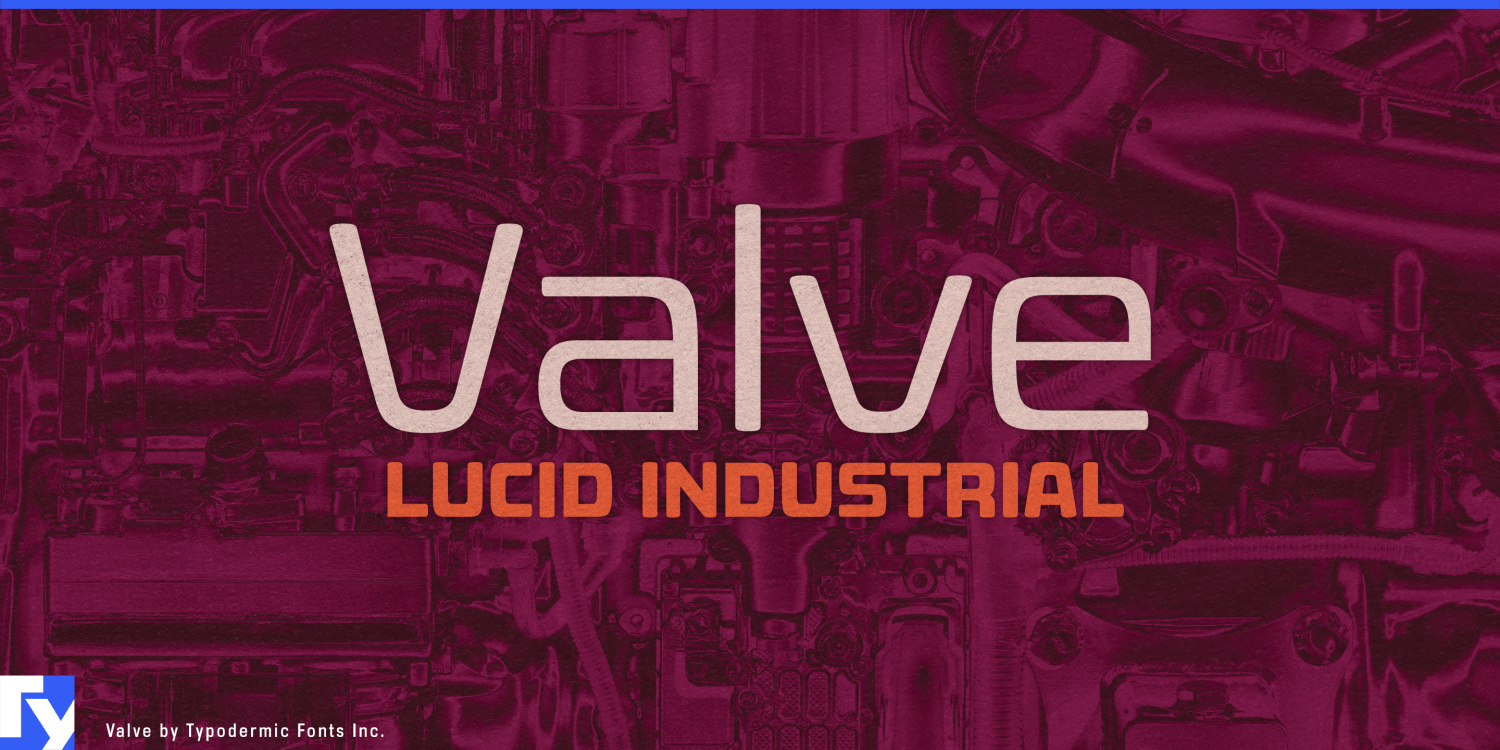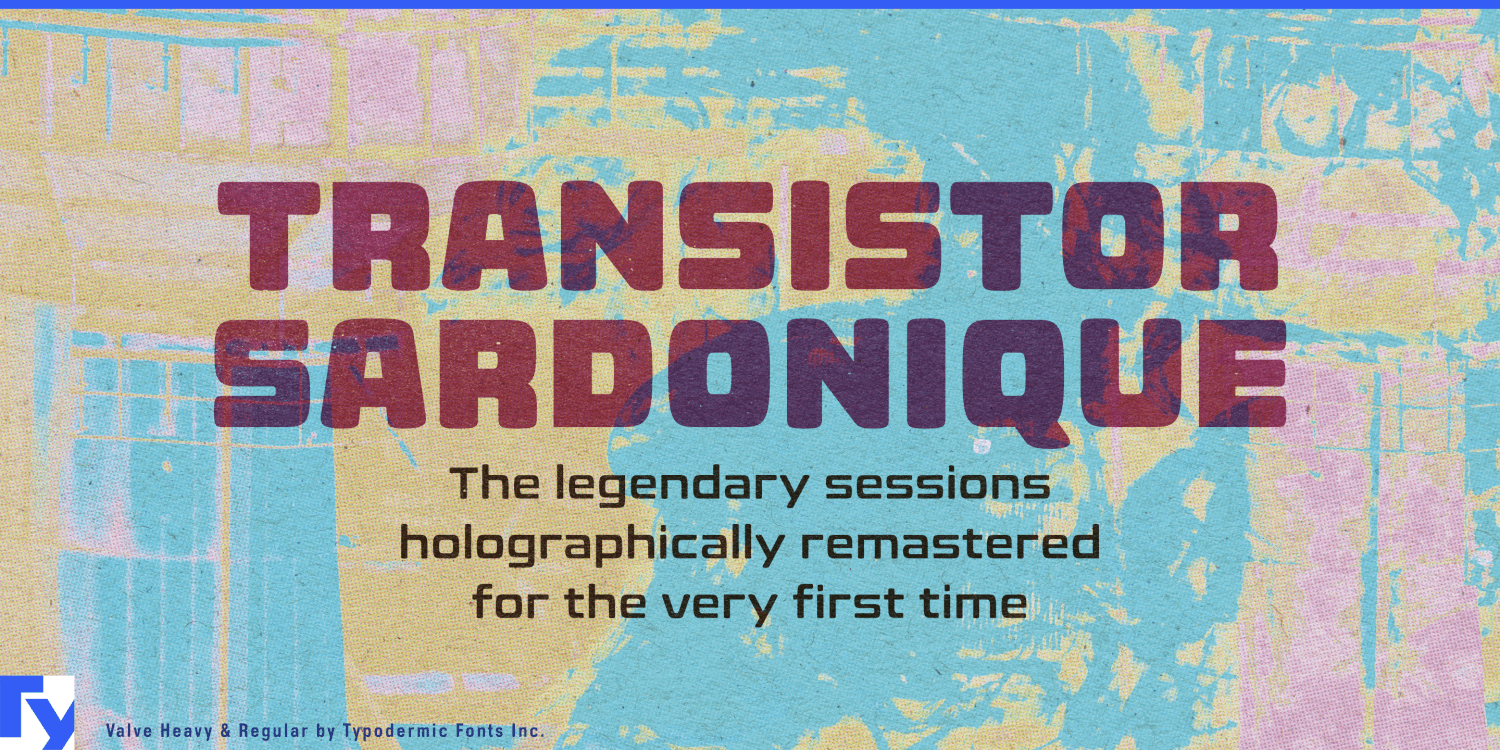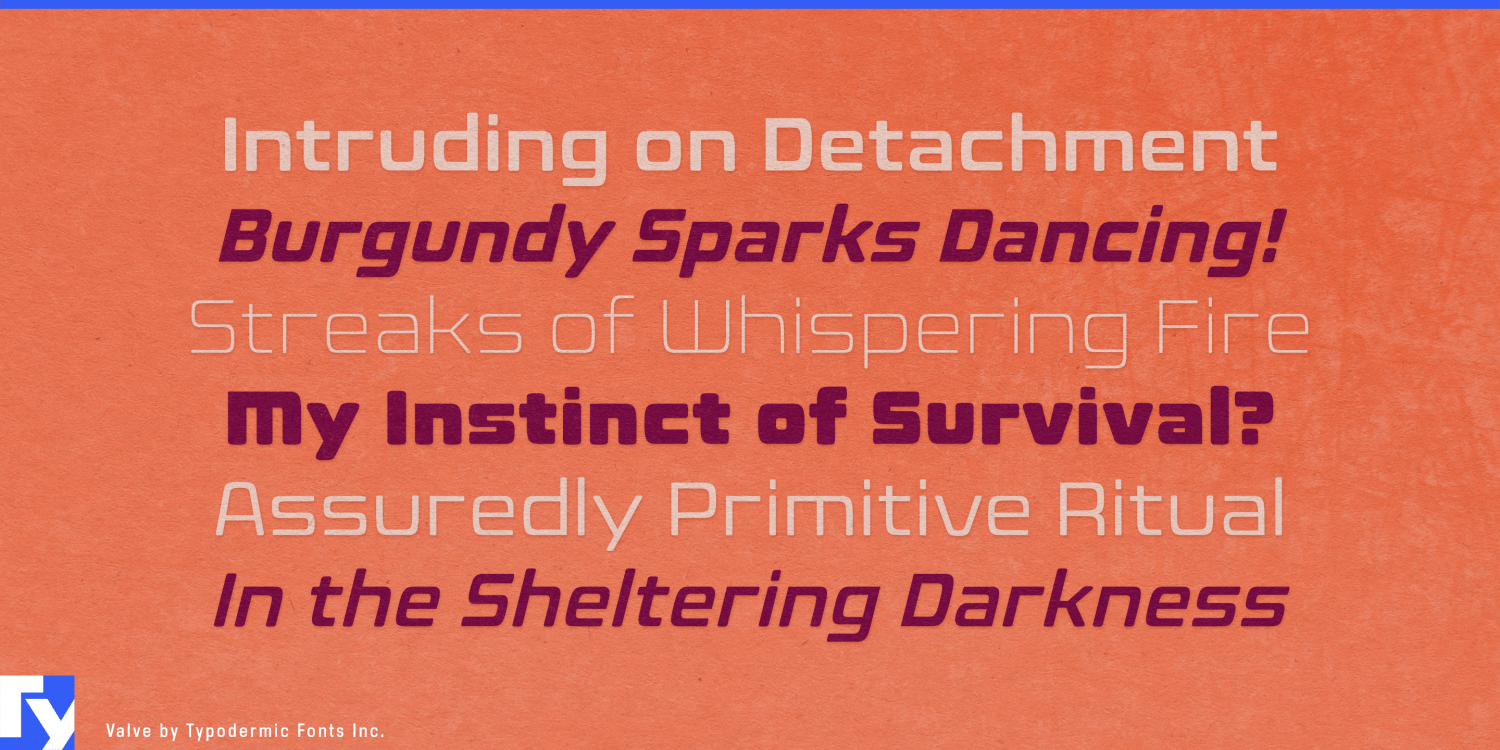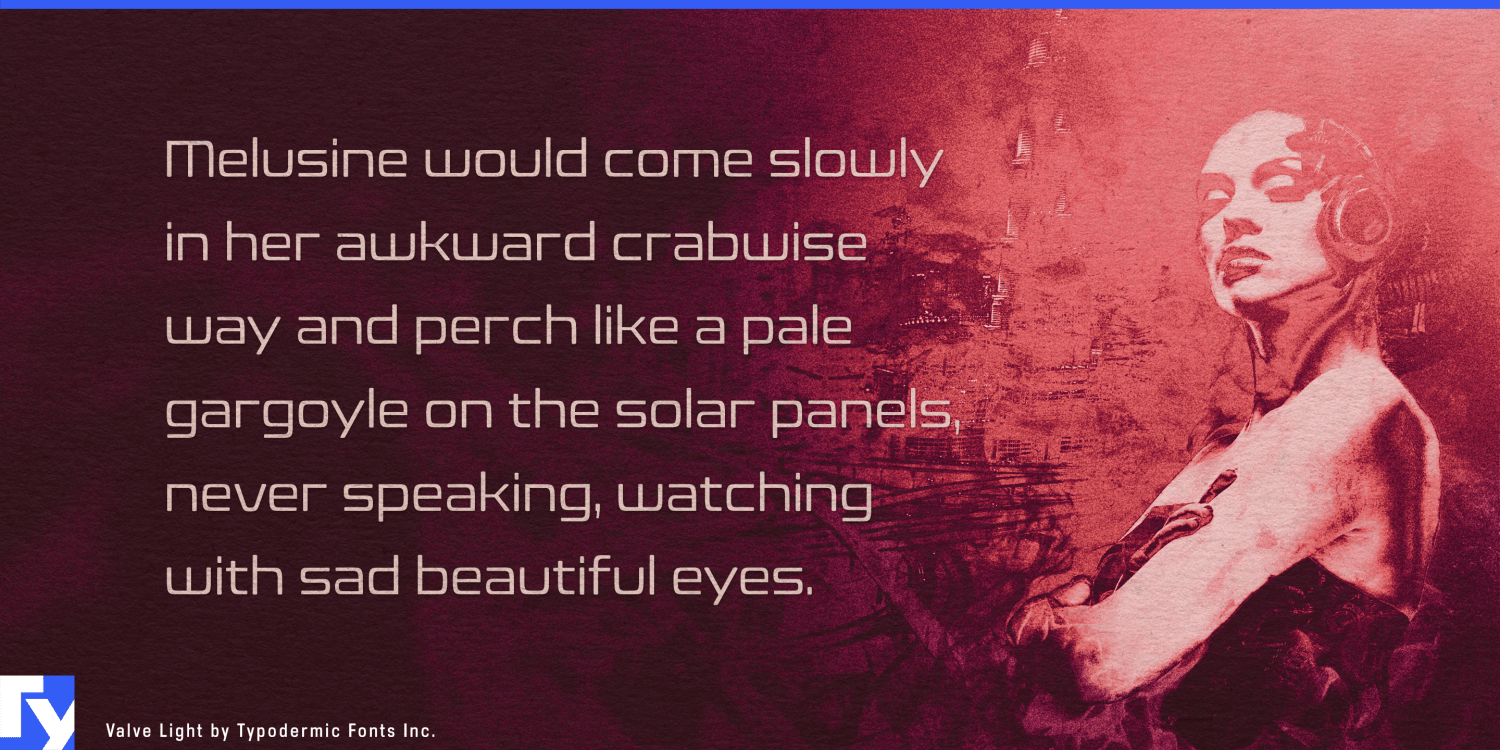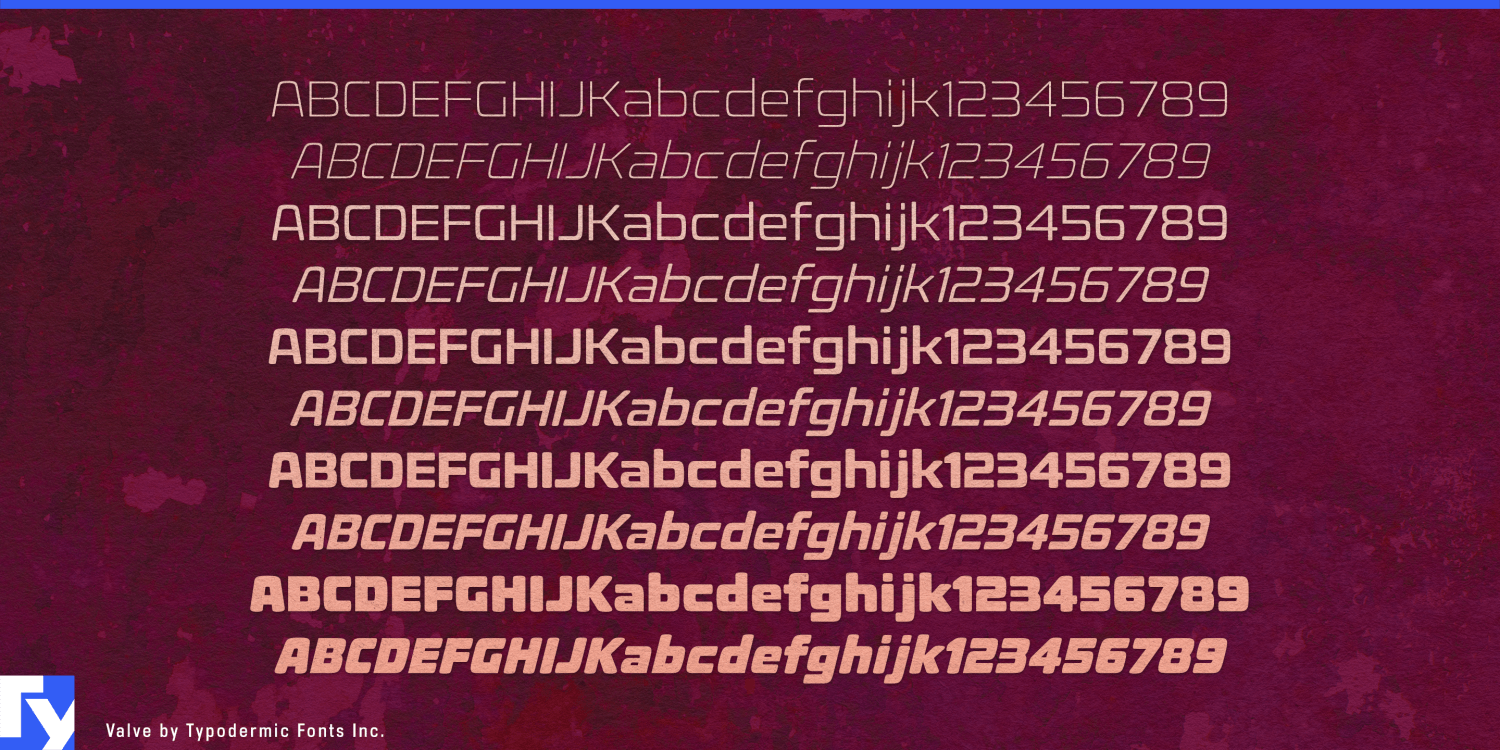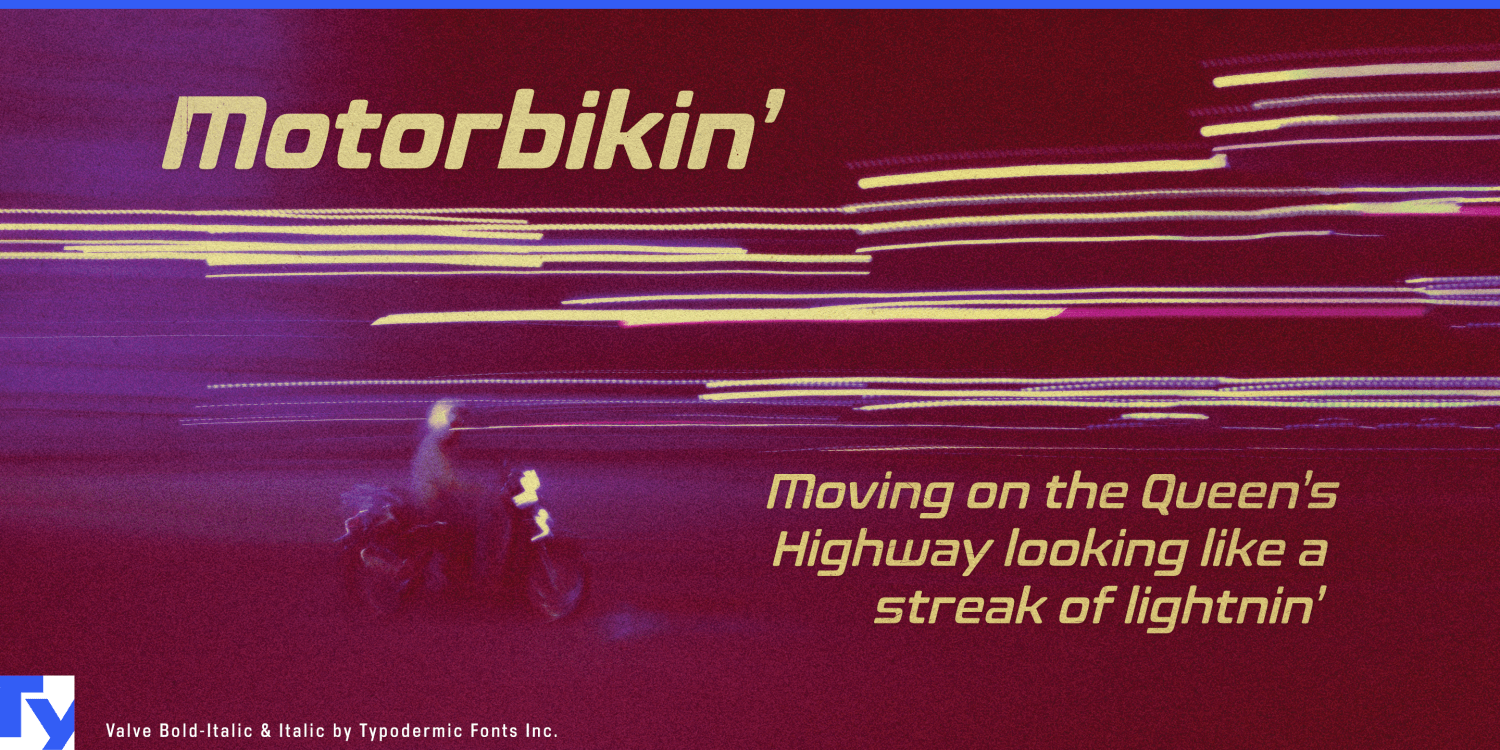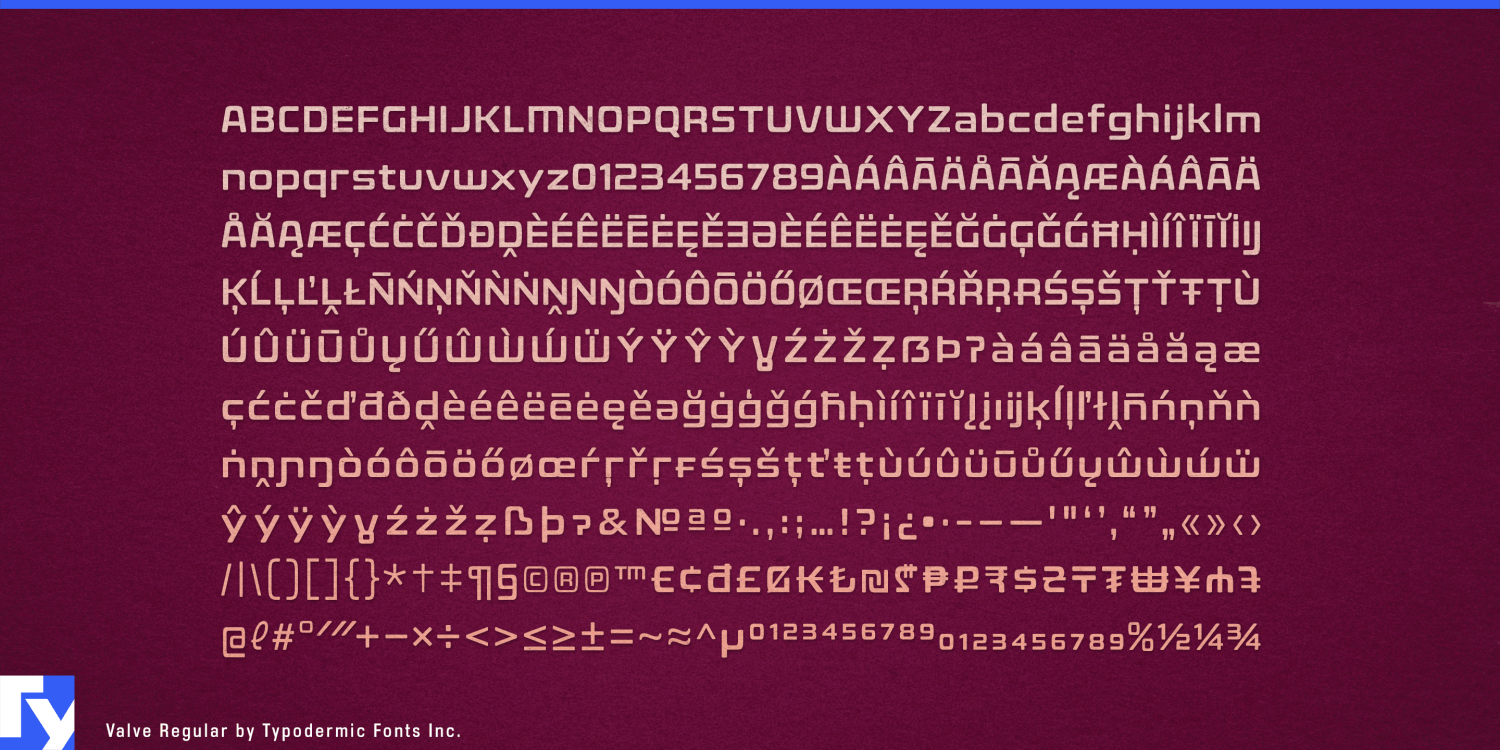
Valve
Some of the most important new infrastructure is built around movement rather than computation: coolant through AI racks, culture media through bioreactors, ultrapure water through semiconductor fabs, gases through separation systems, and liquids through filtration equipment. The branding problem is that these systems often end up looking either anonymous or overly literal. A neutral industrial sans says little about the process; pipes, arrows, droplets, and molecule diagrams quickly become visual clichés.
Valve approaches the subject through the letterforms themselves. Its rounded superelliptical construction, blunt terminals, and controlled monoline rhythm suggest channels, fittings, housings, and regulated flow without drawing any of them literally. The result feels manufactured and technical, but softer than the hard-edged geometry associated with electronics or heavy machinery.
Bioprocessing and precision fermentation are especially strong settings. Bioreactors, fermentation skids, sterile-fluid systems, filtration platforms, downstream-processing equipment, sampling modules, and single-use connectors all depend on carefully controlled movement through complex process paths. Valve can handle bioreactor names, processing-system families, equipment graphics, pilot-plant displays, biotechnology exhibitions, and launch presentations.
AI liquid cooling presents a different industry built around the same physical problem. Coolant-distribution units, cold plates, rack manifolds, pumps, heat exchangers, and liquid-cooled rack systems are becoming central parts of high-density computing infrastructure. Valve can give those products identities that acknowledge the fluid systems distinguishing them from ordinary server hardware, making it useful for CDU names, cooling-platform identities, data-center exhibitions, and thermal-management presentations.
Semiconductor manufacturing creates another extensive network of controlled fluids. Advanced fabs rely on ultrapure water, chemical delivery, wastewater treatment, filtration, gas handling, and resource-recovery systems operating behind the chipmaking equipment. Valve can work for water-treatment platforms, chemical-delivery systems, filtration modules, utility skids, reclaimed-water facilities, and semiconductor sustainability presentations without falling back on generic circuit imagery.
Industrial water treatment extends the same language into membrane filtration, desalination, closed-loop process water, advanced reuse systems, and modular treatment equipment. Valve can give reverse-osmosis platforms, membrane families, recycling systems, treatment modules, and water-technology exhibitions an engineered identity without making every project depend on a blue droplet.
Gas separation and carbon-capture equipment broaden the idea beyond liquids. Membrane systems, solvent loops, sorbent modules, contactors, compressor skids, and pilot capture plants all manage controlled movement through physical processes.
Valve is most useful when the technology itself is about circulation, separation, filtration, dosing, cooling, or regulation. Instead of illustrating the process around the typography, it gives the typography a physical sense of flow.